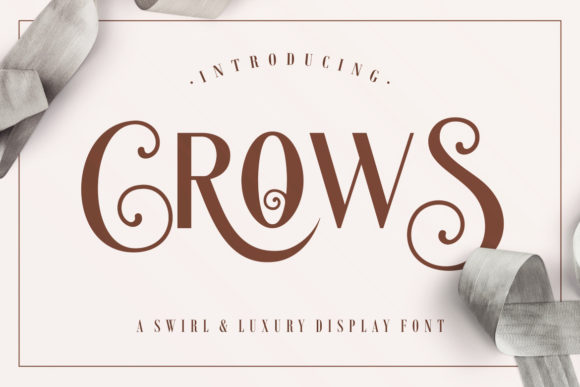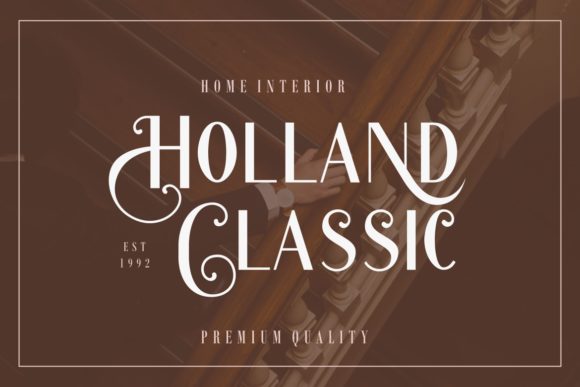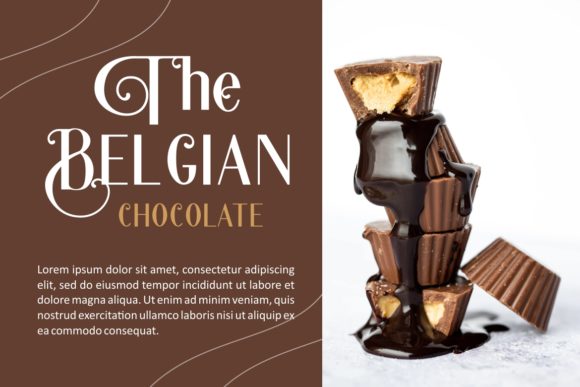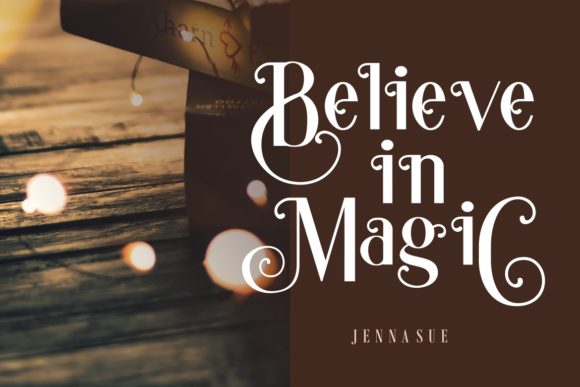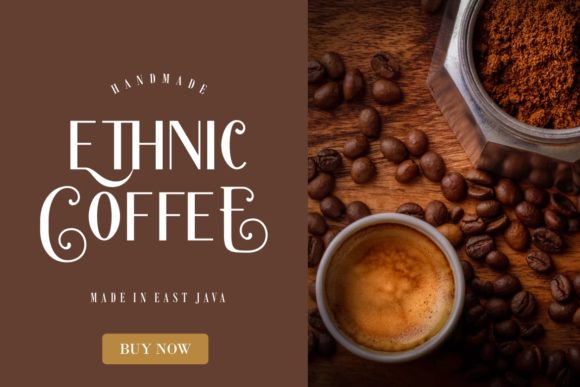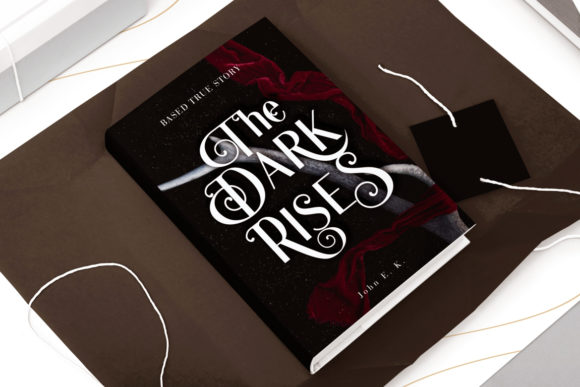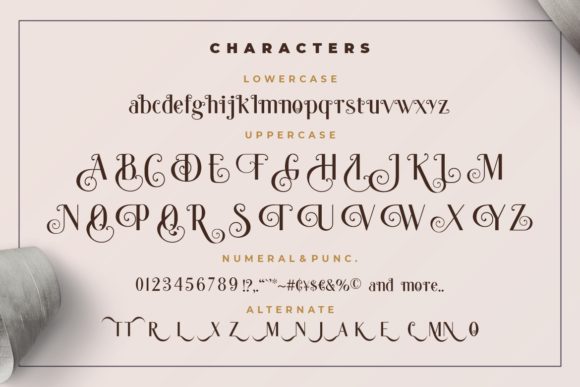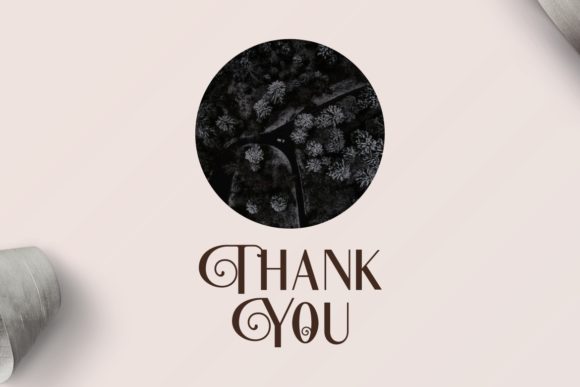
Crows is elegant and sophisticated, but also playful. This versatile display font has a wide range of applications ranging from headlines to branding and is guaranteed to add a bold touch to your next design.
This font is PUA encoded which means you can access all of the charming glyphs and swashes with ease! It also features a wealth of special features including alternate glyphs and ligatures.